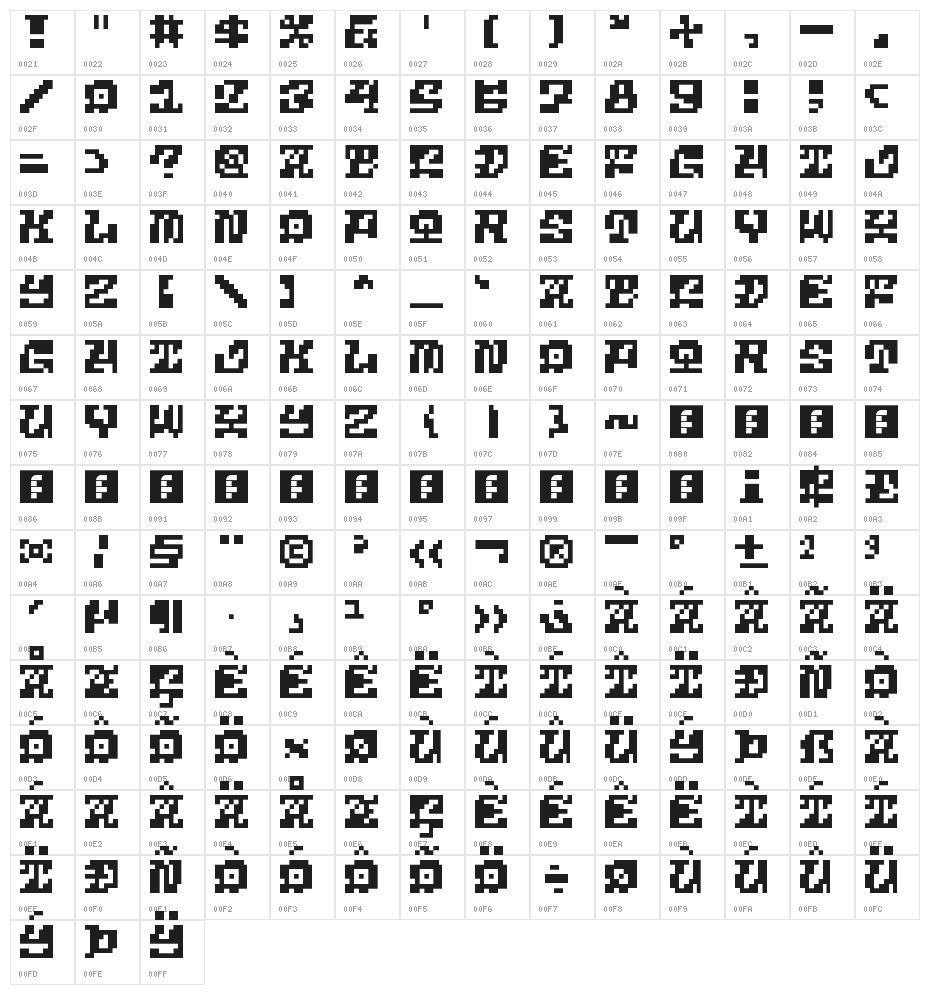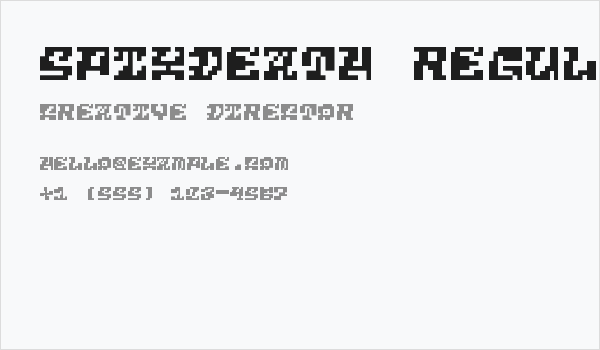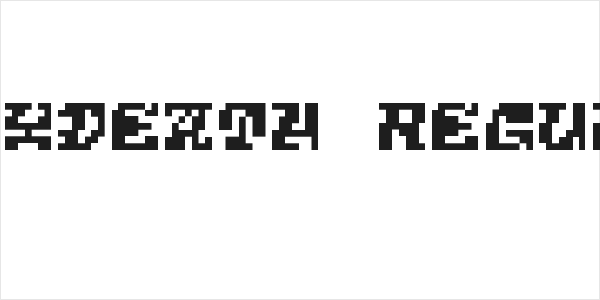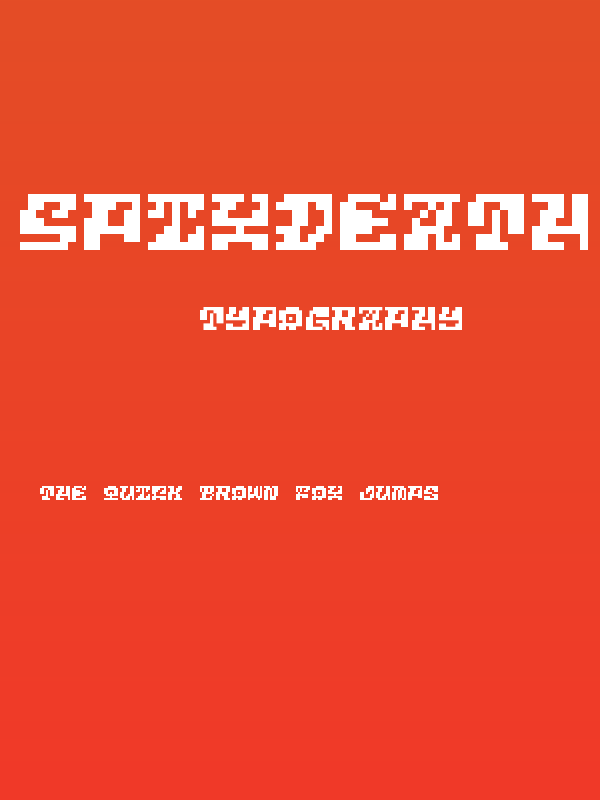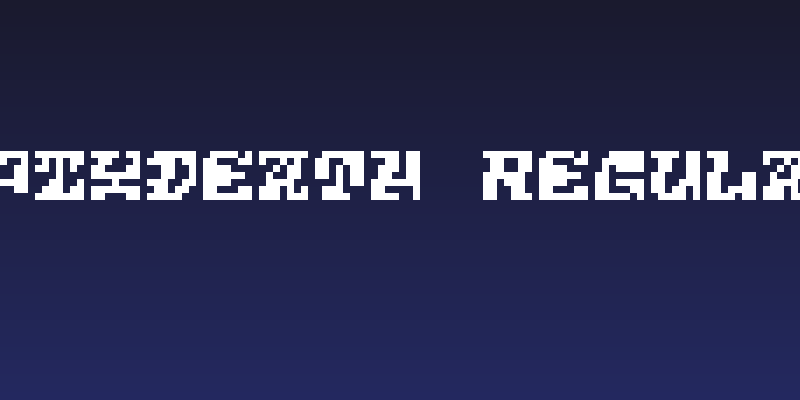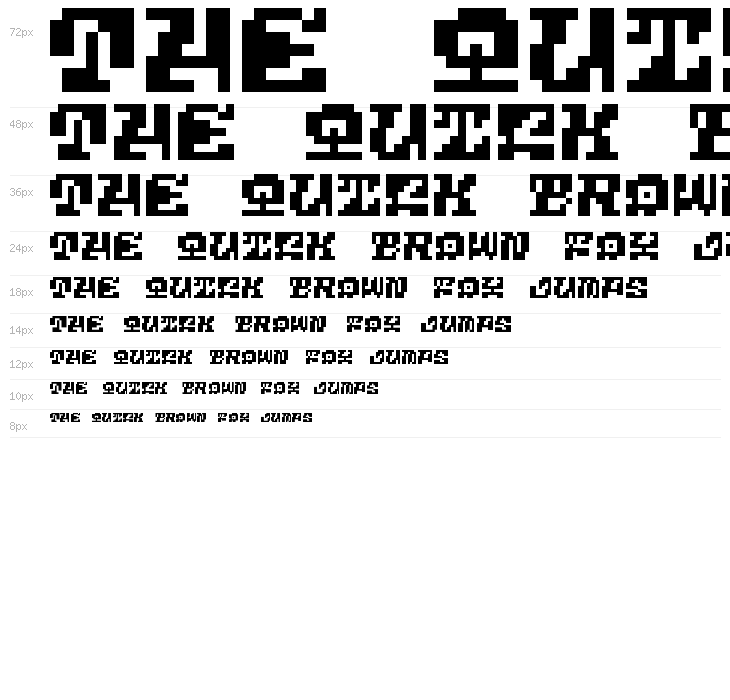
5Pixdeath Regular Font
5Pixdeath Regular Description
This font features a bold, pixelated style reminiscent of early digital and video game typography. The characters are constructed with a blocky, geometric design, giving it a distinctly retro and digital aesthetic. The uppercase and lowercase letters maintain a consistent height, enhancing its uniform appearance. The numbers and special characters follow the same pixelated pattern, ensuring a cohesive look across all glyphs. This font is ideal for projects that aim to evoke nostalgia or a digital theme, such as video game designs, tech-related branding, or retro-themed posters.
| Overall Style | Retro, Digital |
| Proposed Projects | Video game designs, tech branding, retro-themed posters, digital art projects. |